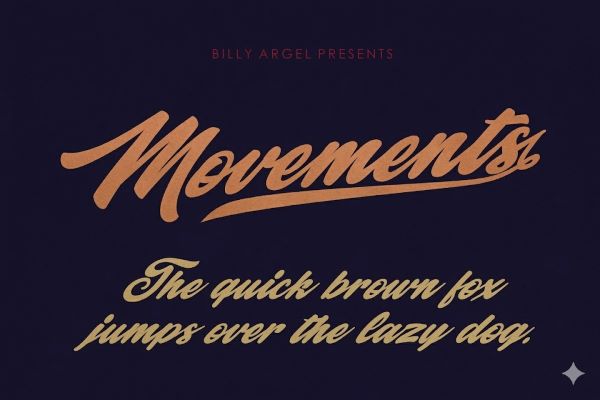
Movements Font
Movements by Billy Argel Fonts is a bold, expressive baseball Cursive Font with a retro personality and an informal swagger that makes every word feel like it was dashed off in a rush of creative energy. Its sweeping, confident letterforms — somewhere between classic sports lettering and vintage handwriting — translate effortlessly to product packaging, retro movie posters, event flyers, streetwear apparel, and any casual context that benefits from a handcrafted, lived-in typographic character. Free for personal use.